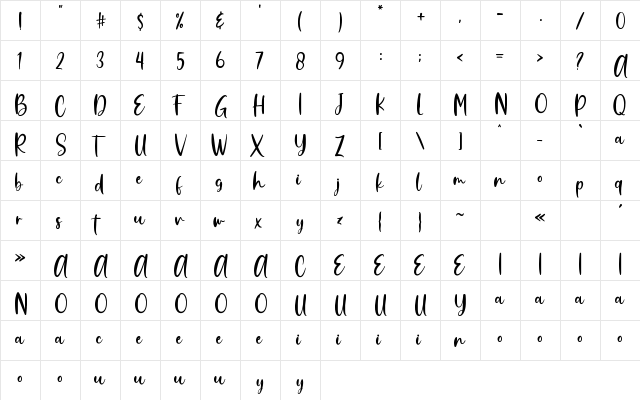
Goldstone Regular
| Foundry | Suby Studio |
| Designer | Teguh Subiyantoro |
Design Context for Goldstone Typeface
Goldstone is a composed and adaptable typeface that performs quietly and consistently across a wide range of design contexts.